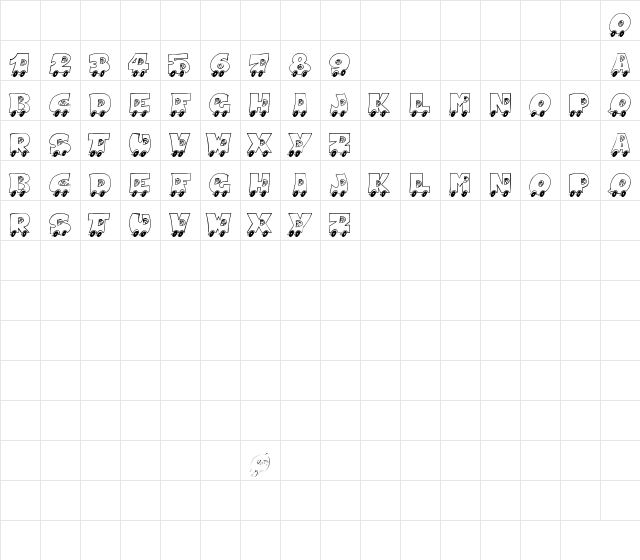
AlphaCar Regular Font Preview
AlphaCar Regular
Design Context for AlphaCar Typeface
AlphaCar is a composed and adaptable typeface that performs quietly and consistently across a wide range of design contexts.